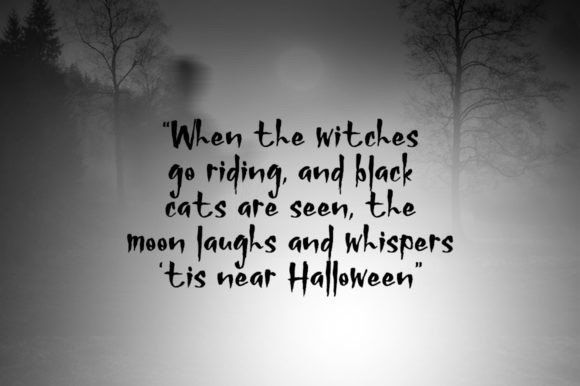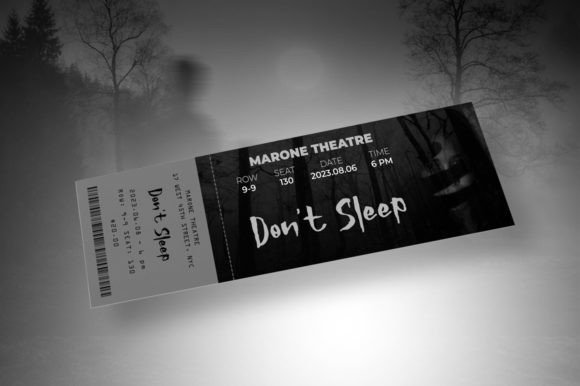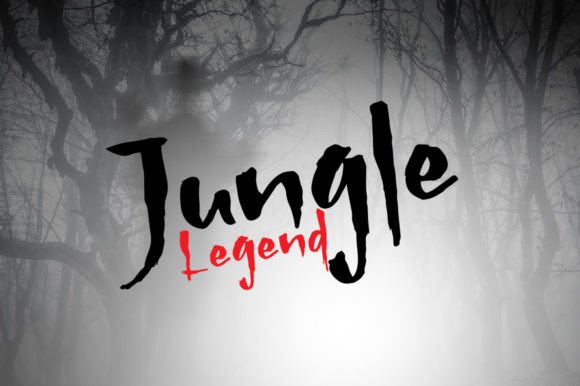
Midnight Stories Font: Free Download Now
Introduction to Midnight Stories Font
The Midnight Stories is a unique and attractive display font.
👤 Author Khurasan
This font is suitable for designs with horror and Halloween concepts It can easily be matched to an incredibly large set of projects, so add it to your creative ideas and notice how it makes them stand out.
Why Choose Midnight Stories Font?